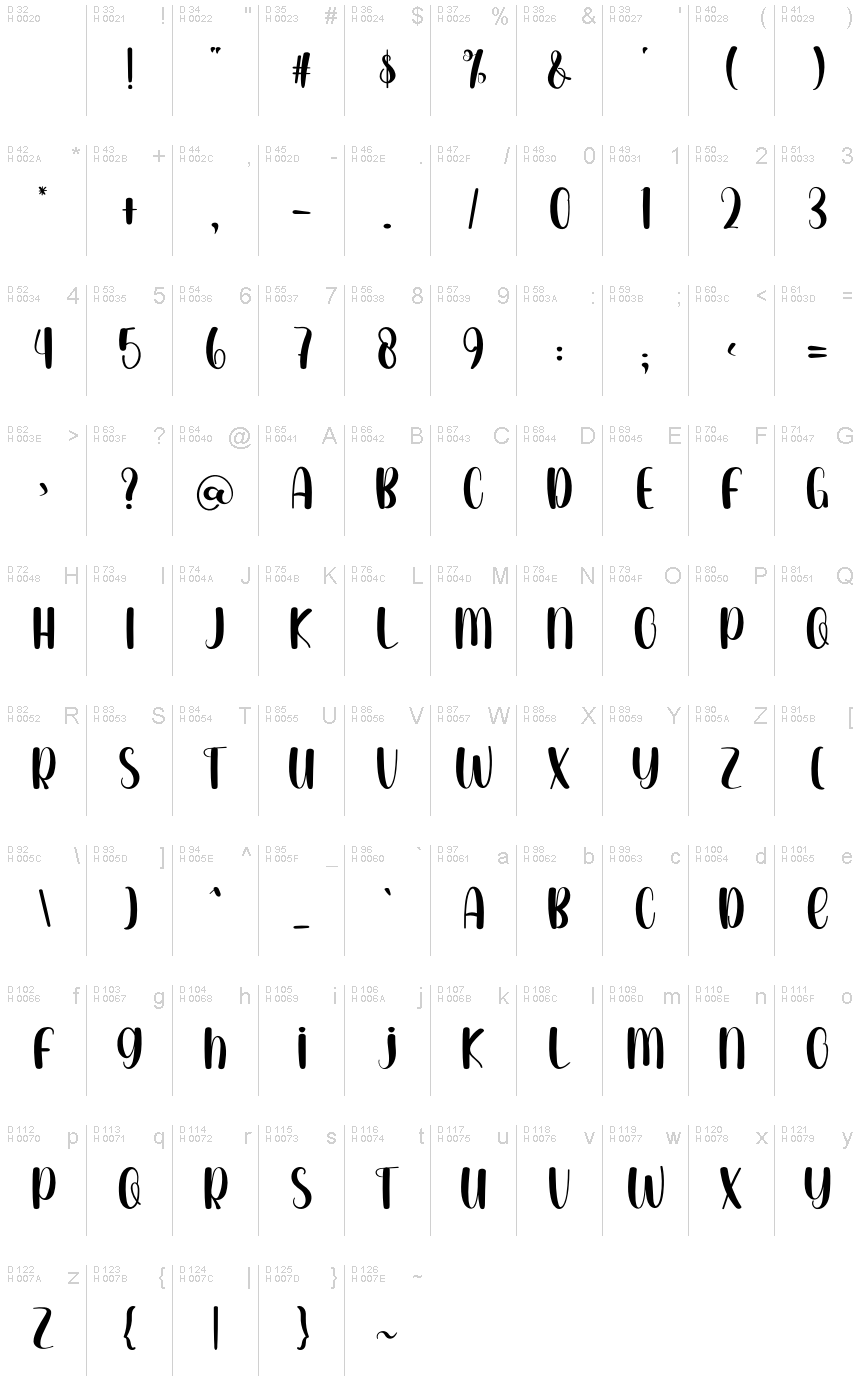
Better More
Better More captivates with its smooth brush strokes, exuding a modern yet organic charm. The elegant fluidity of each letter creates a harmonious flow, making it ideal for both expressive headlines and subtle branding. Its distinct condensed structure lends an air of sophistication, allowing for striking visual impact without overwhelming the viewer.
This font shines in creative contexts: invitations, logos, or social media graphics benefit from its unique personality. Whether aiming for a playful tone or an elegant touch, Better More adapts effortlessly, making it a versatile choice that elevates any design project. Harness its beauty to leave a lasting impression that resonates with audiences across various platforms.